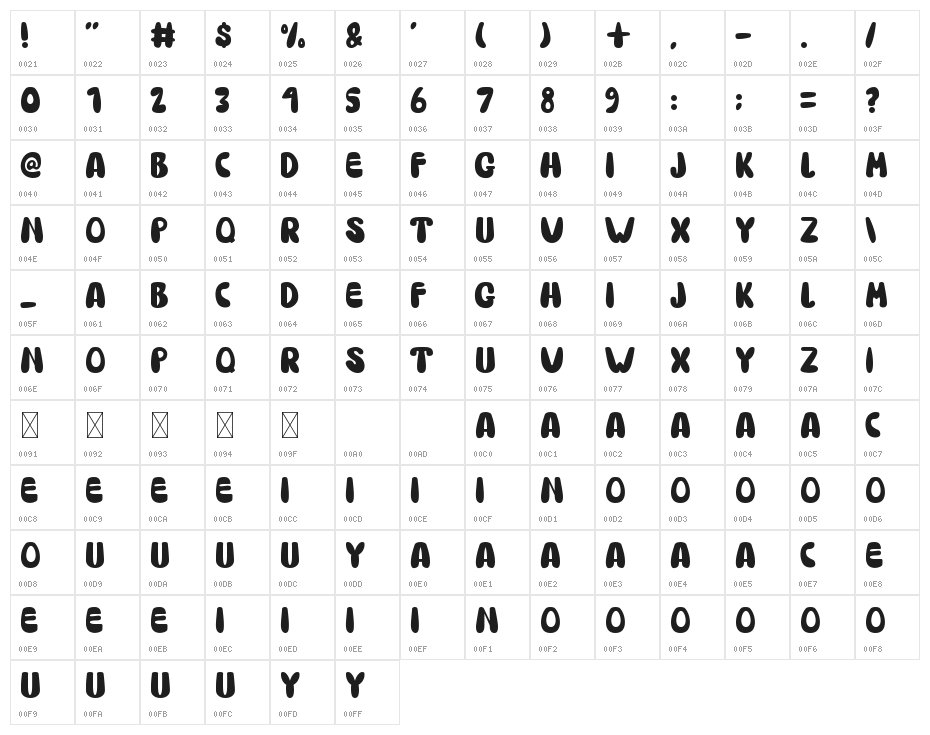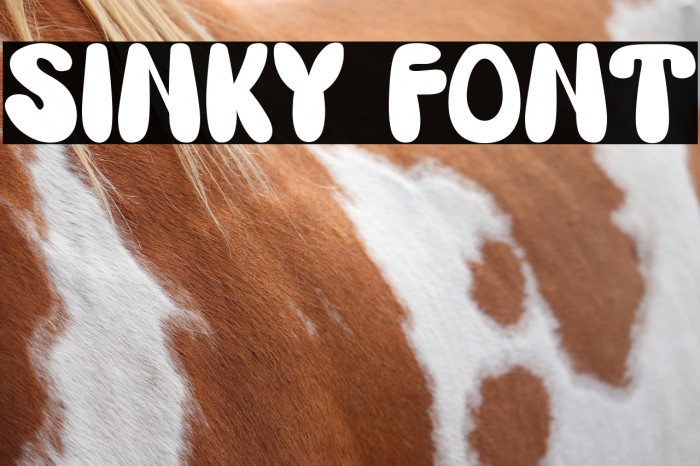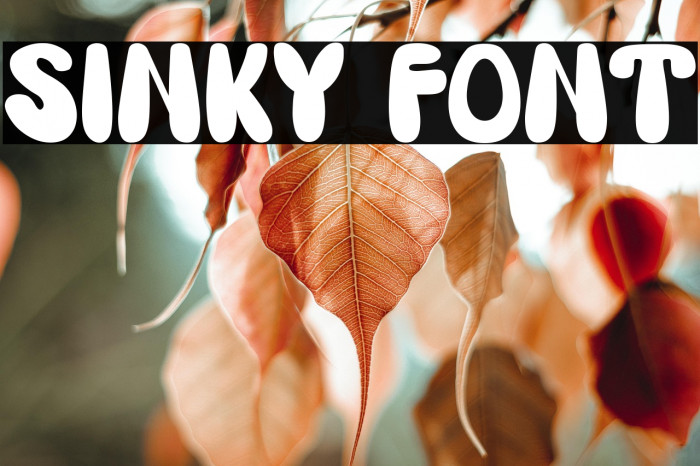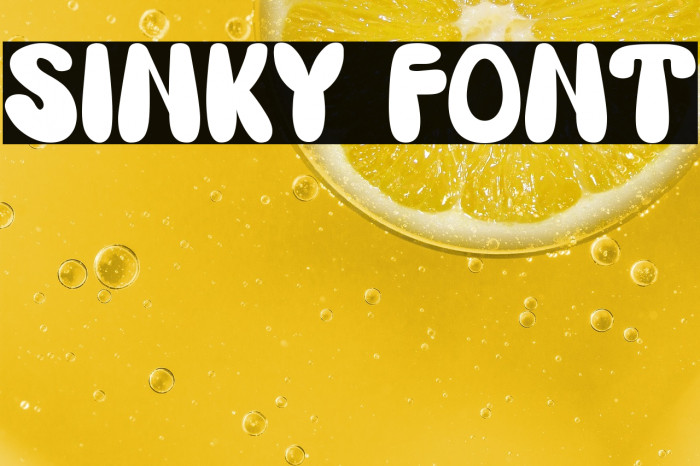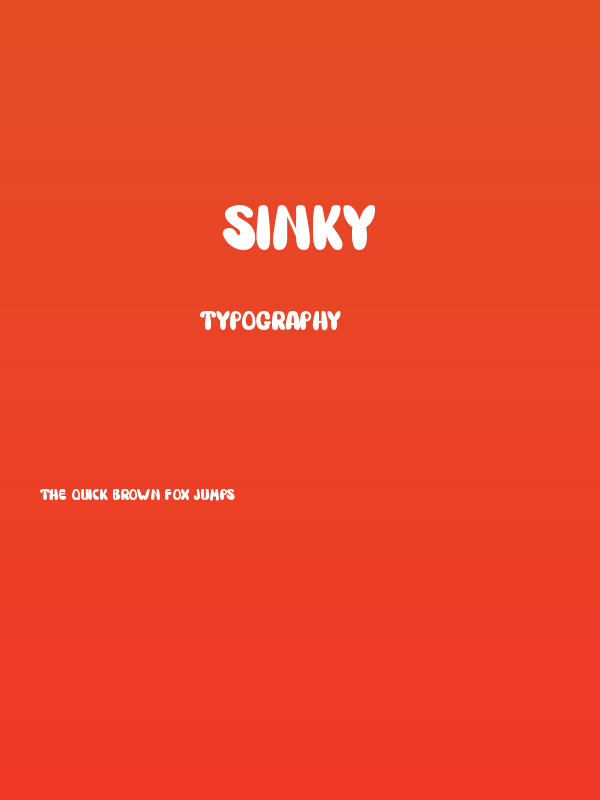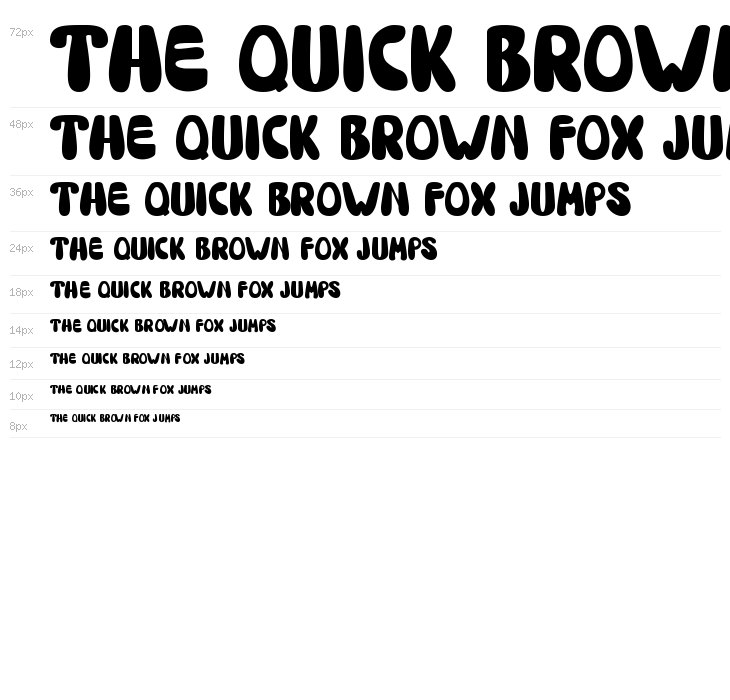
SINKY Font
SINKY Description
This font features bold, rounded characters with a playful and chunky appearance. The letters are uniformly thick, giving them a strong presence on the page. The rounded edges and lack of sharp angles contribute to a friendly and approachable feel. The characters are closely spaced, enhancing the compact and cohesive look. This style is particularly effective for capturing attention and conveying a sense of fun and energy. The numbers and special characters maintain the same bold and rounded style, ensuring consistency across all elements.
| Proposed Projects | Ideal for children's books, playful branding, posters, and social media graphics. |